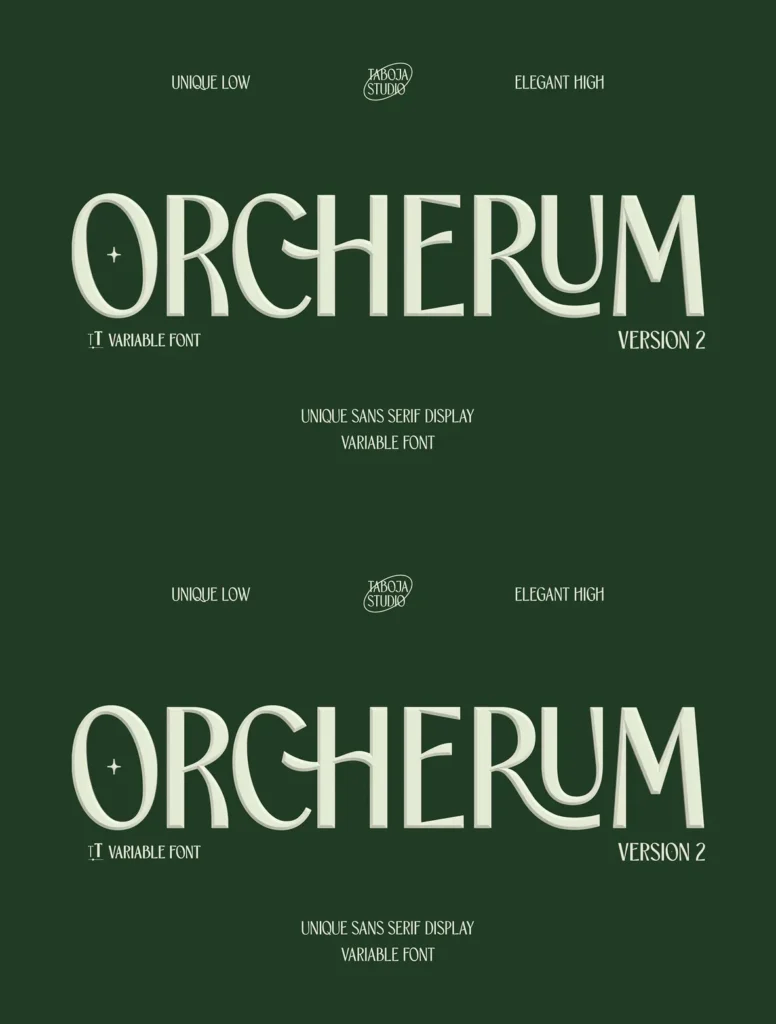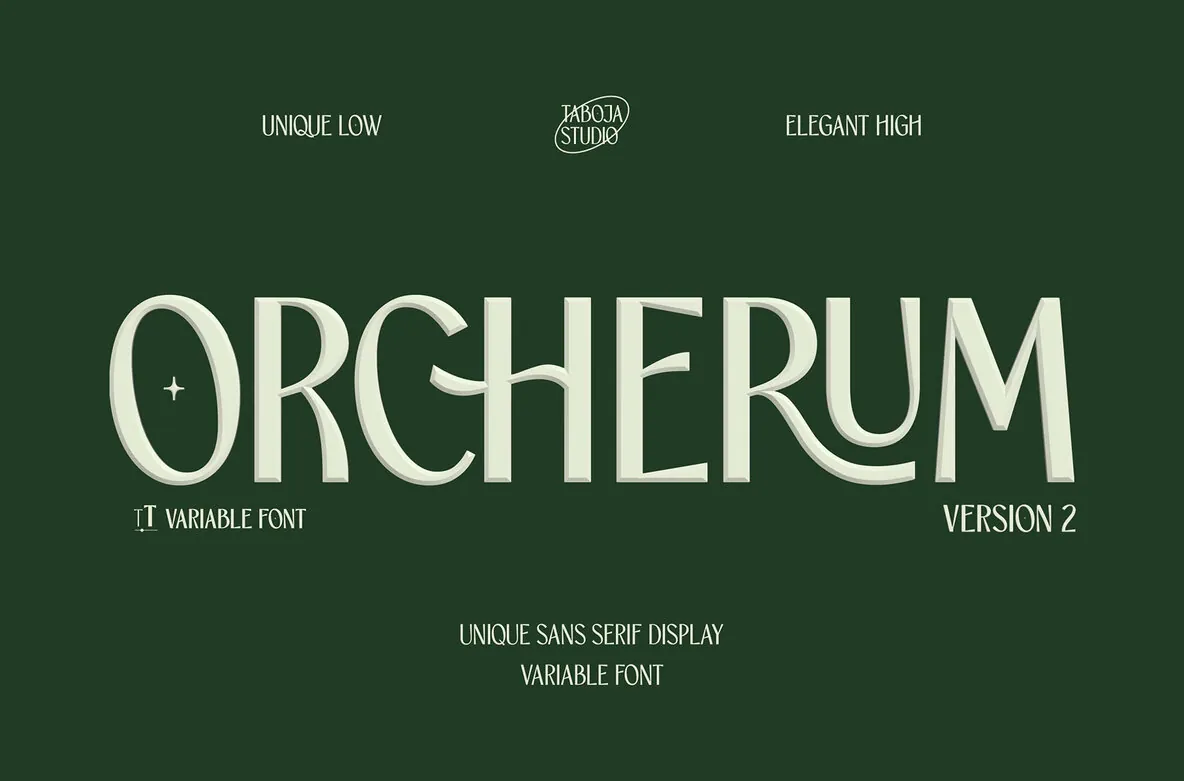
TBJ Orcherum V2: Elevated Contrast Serif Typeface
TBJ Orcherum Version 2 emerges with a sophisticated blend of timeless elegance and modern vivacity, building on the foundation of its predecessor with an intensified contrast and weight to ensure lasting impact. This updated serif typeface offers a seamless fusion of clarity and drama, set to captivate in both display and text settings.
Admired for its elegant origins, TBJ Orcherum V2 now expands its versatility with Low and High Contrast styles. This evolution ensures a striking presence across various design scenarios, enhancing logotypes, magazine headlines, and upscale branding with its high-contrast version, while the low-contrast option maintains legibility and elegance for body text and extended reading.
Key Updates
Expanded Weight Range:
From delicate light styles to commanding bold weights, TBJ Orcherum V2 accommodates a broad range of design needs.
Enhanced Contrast Options:
Choose Low Contrast for understated sophistication or High Contrast for impactful designs.
Display-Optimized Forms:
Standout in headlines, logos, and editorial spreads; perfect for both print and digital media.
Timeless Serif Design:
A classic design refined for modern usage, harmonizing elegance with functionality.
Multi-Application Versatility:
Suitable for luxury branding, corporate identities, mid-century modern design, and social media graphics.